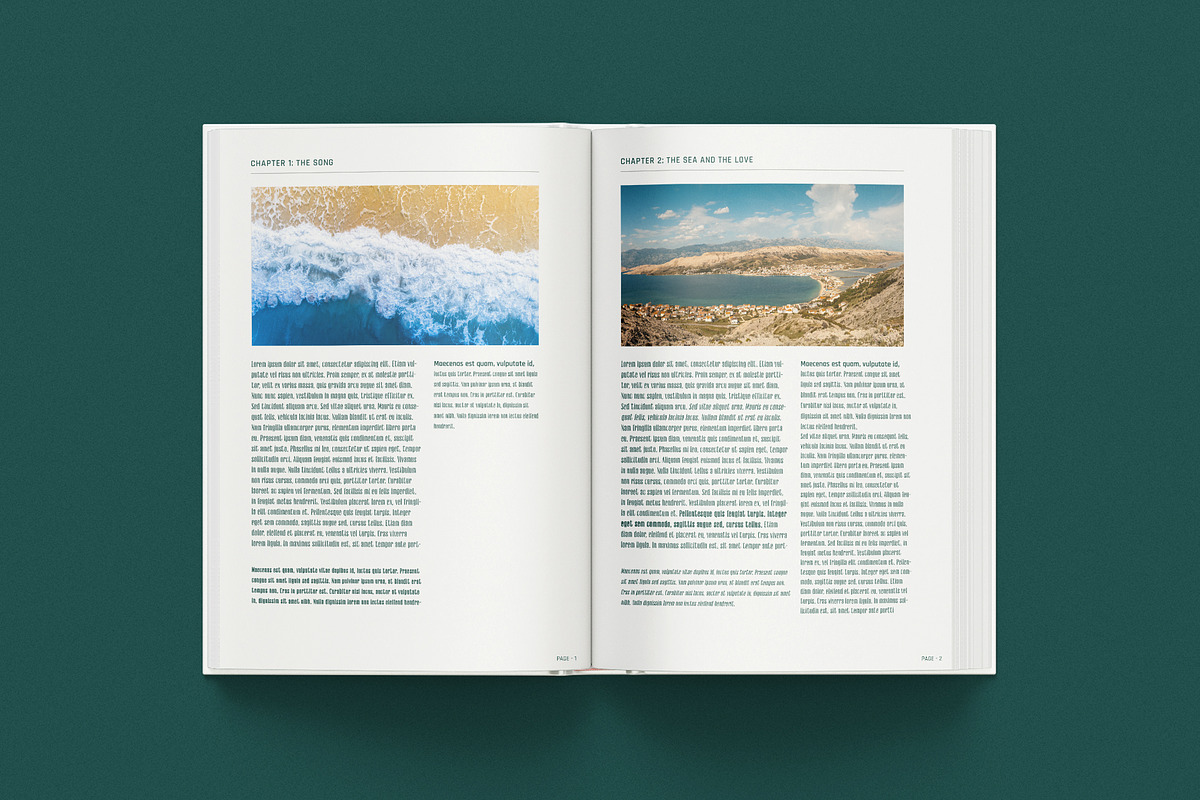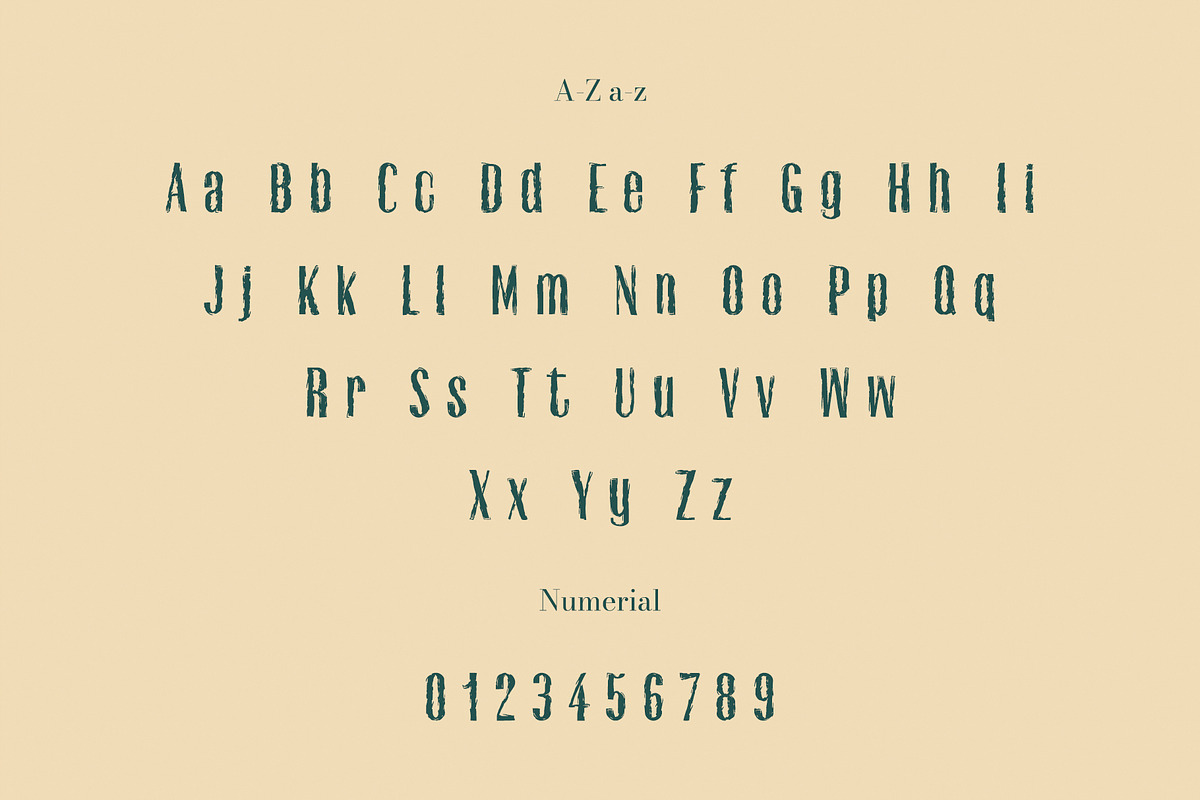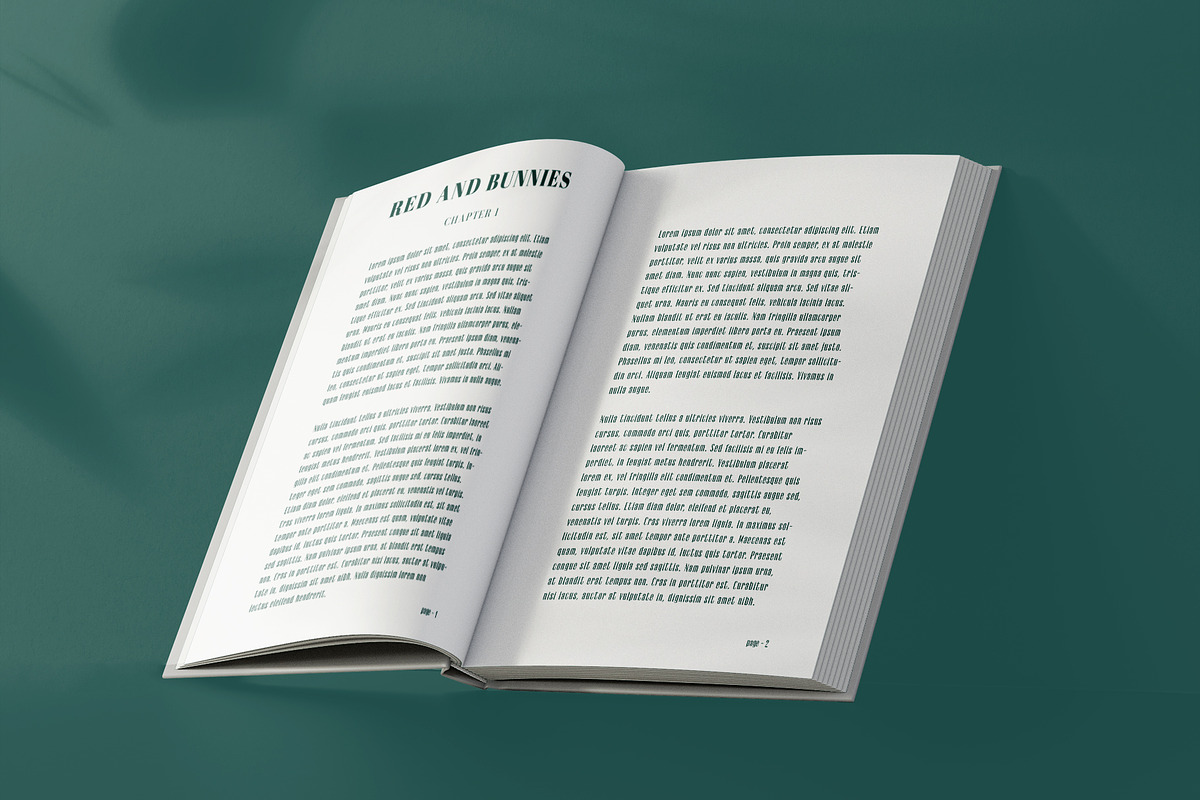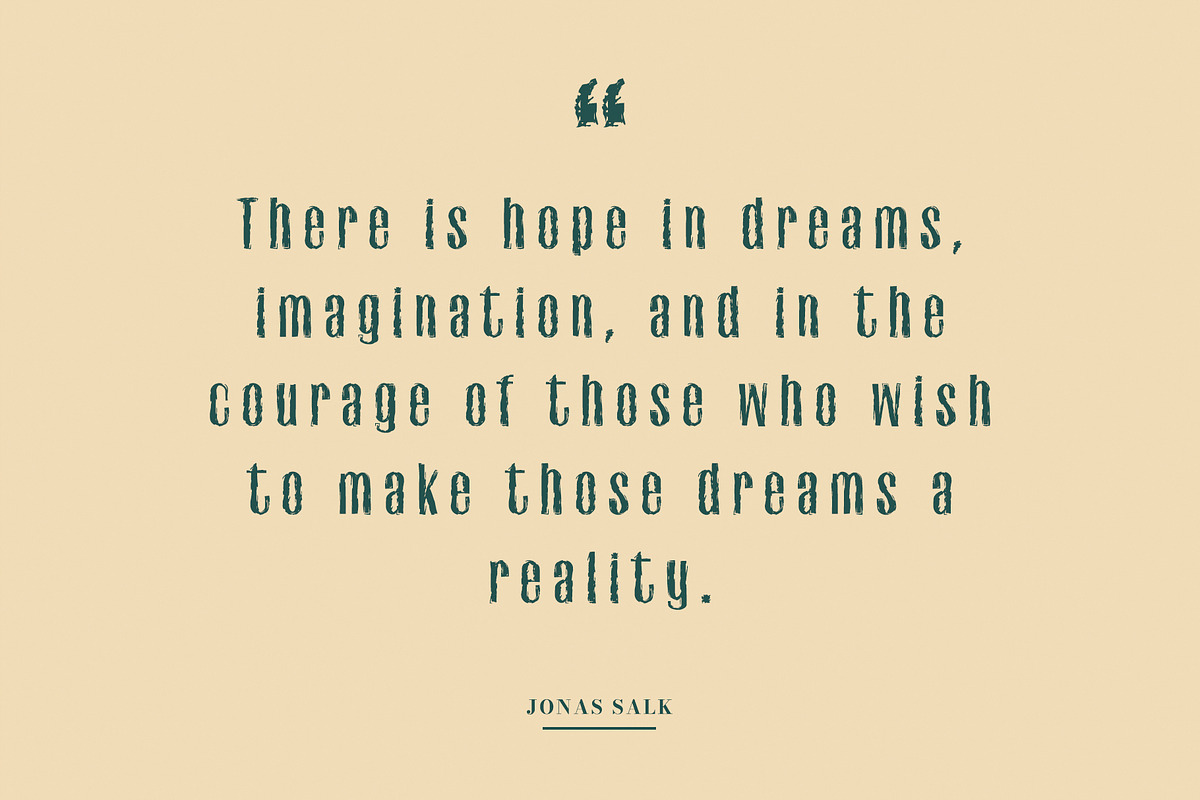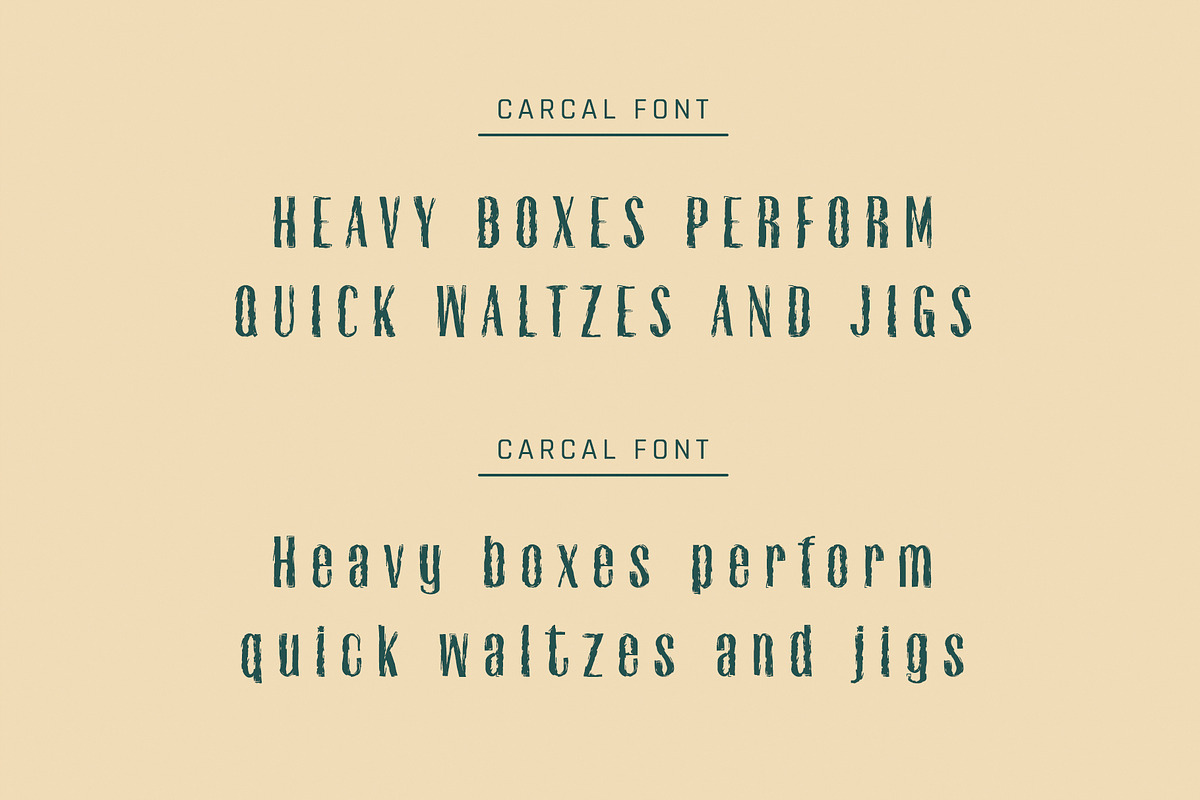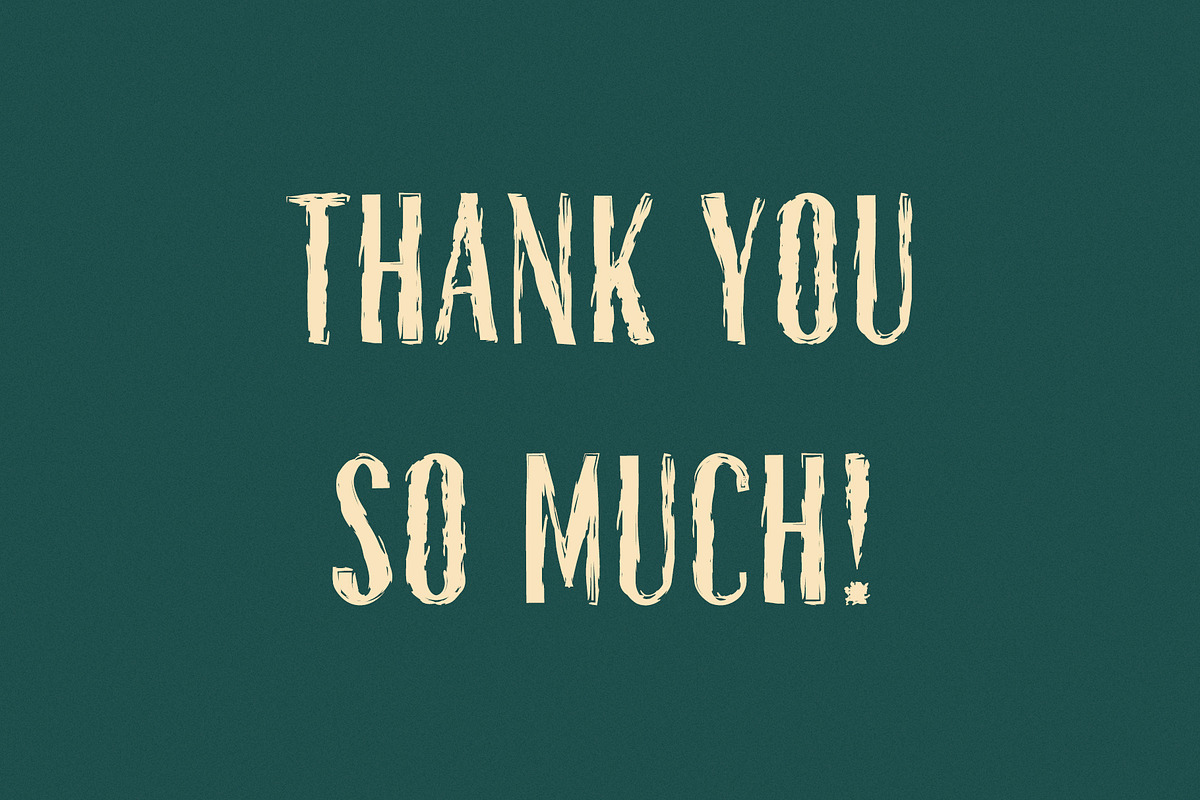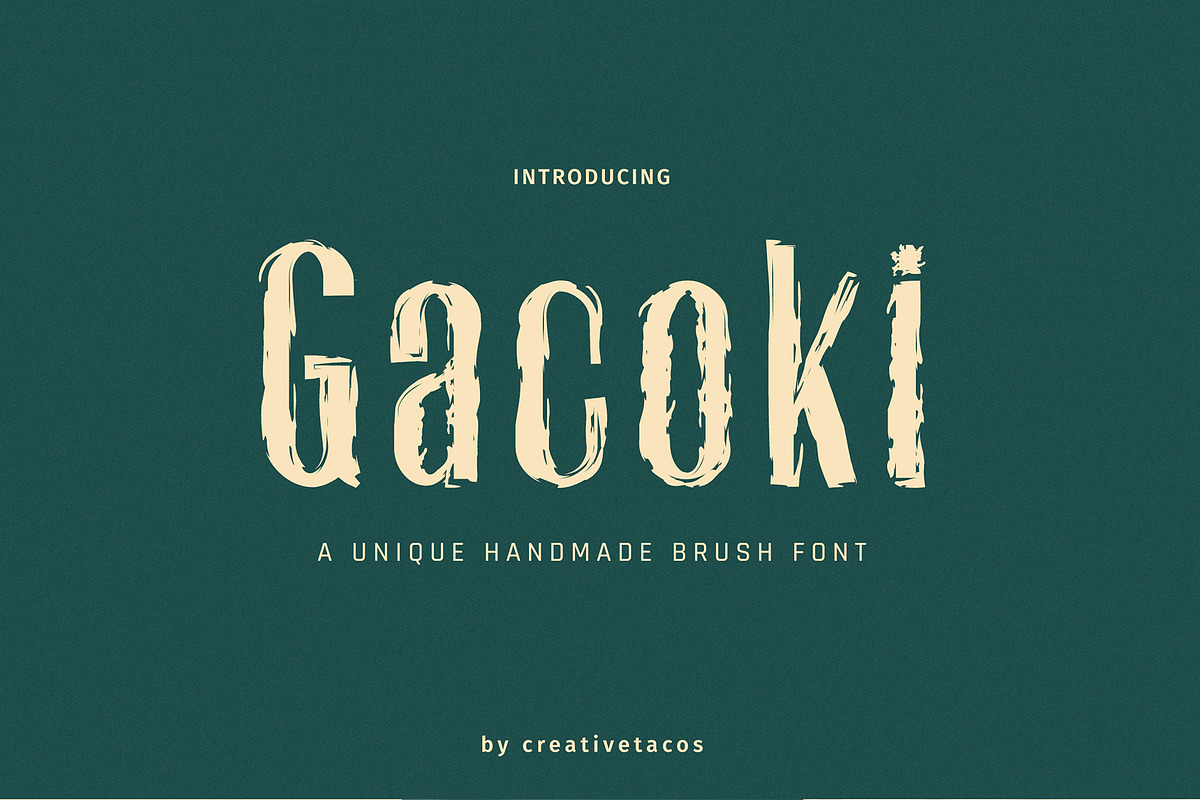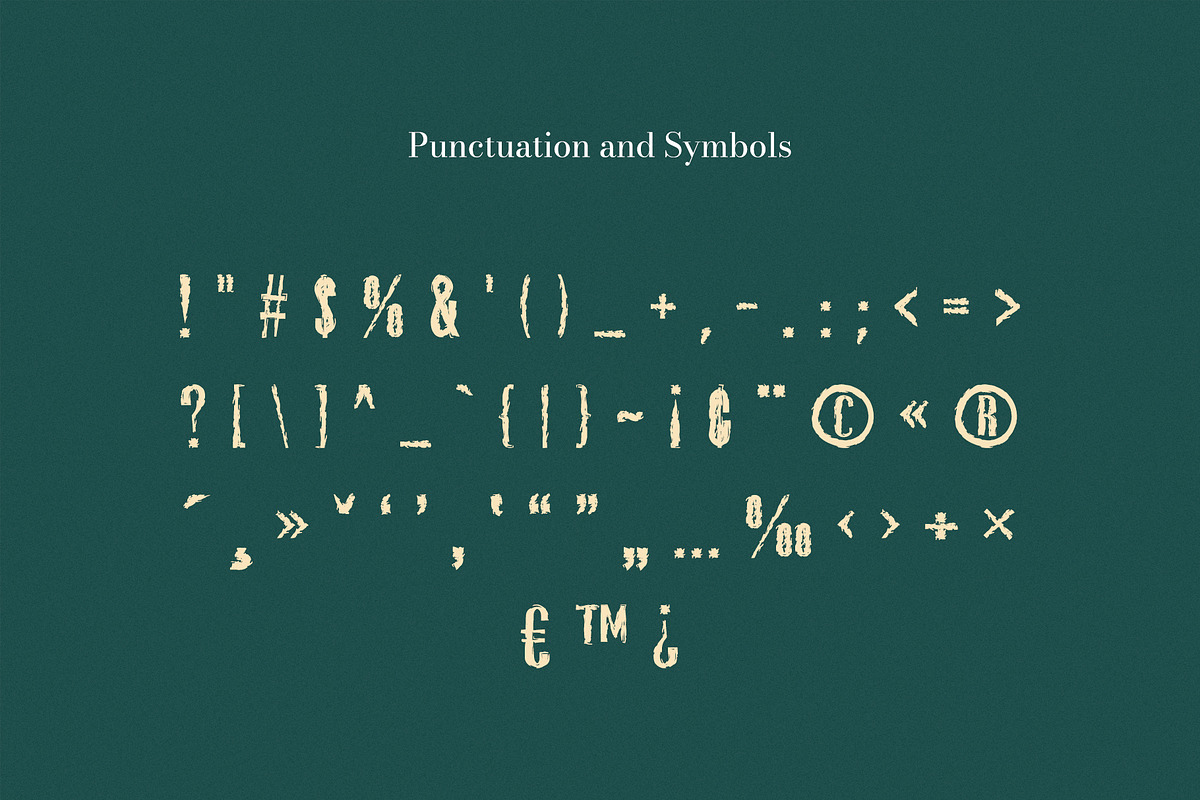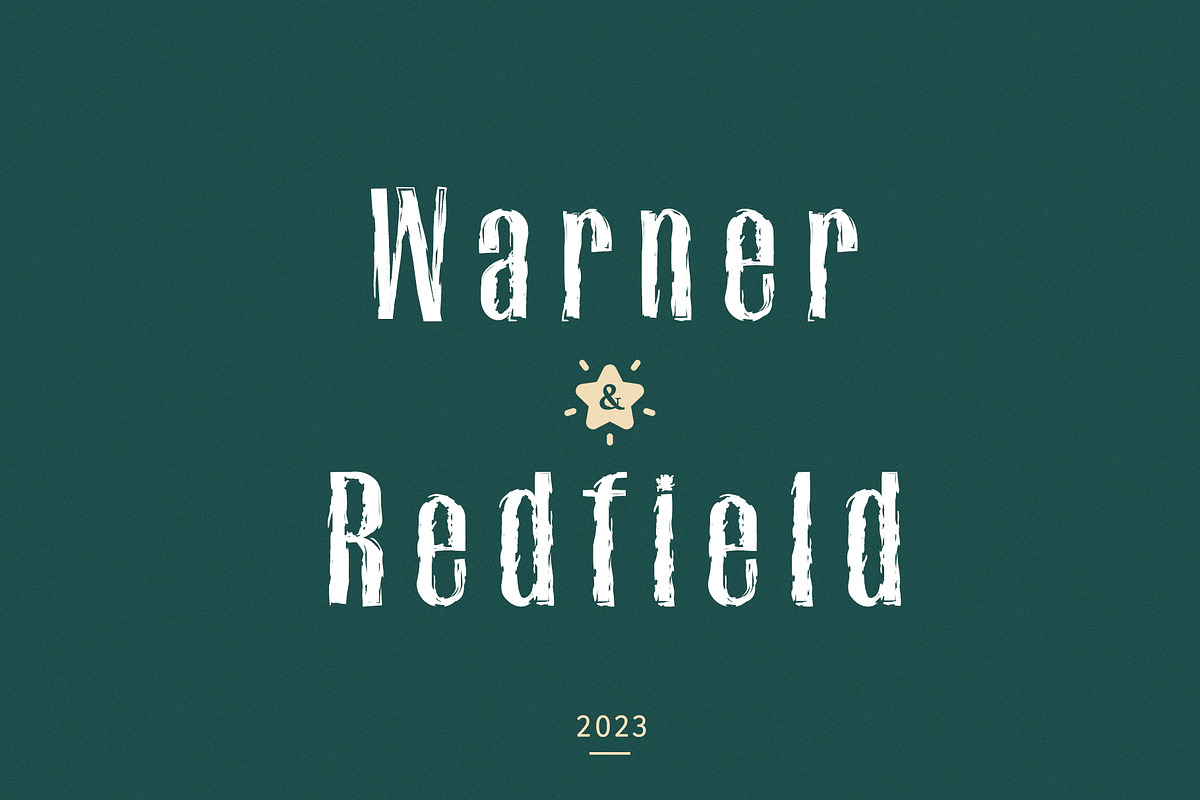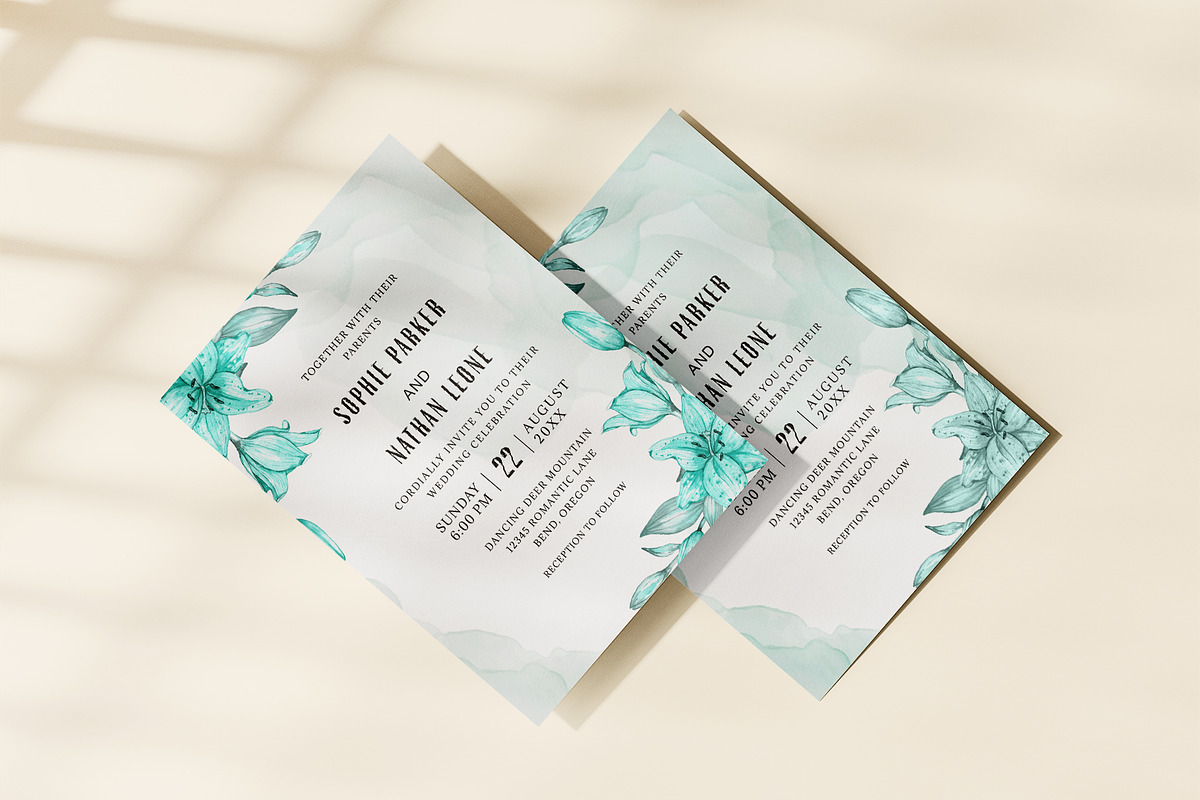
Gacoki Brush Font
Say hello to our Gacoki Brush Font! It's a fun, eye-popping hand-drawn font that brings a modern and playful vibe to your future projects. It features all you need - uppercase, lowercase, numbers, punctuation, and symbols, and even supports multiple languages.
Gacoki is your go-to font for just about anything! Use it for packaging, slideshows, logos, headlines, lettering, posters, branding, inspirational quotes, titles, magazine layouts, website designs, ads, invites, packaging design, book covers, and any other creative endeavour you can think of.
- Big Letters (Uppercase)
- Small Letters (Lowercase)
- Numbers & Symbols
- All the letters from A-Z (uppercase and lowercase)
- All the numbers from 0-9
- All these special characters - !"#$%&'()*+,-./:;=?@[]^_`{|}~¥
And a range of international characters like ÀÁÂÃÄÅÈÉÊËÌÍÎÏÑÒÓÔÕÖÙÚÛÜÝàáâãäåèéêëìíîïñòóôõöùúûüýÿỲ